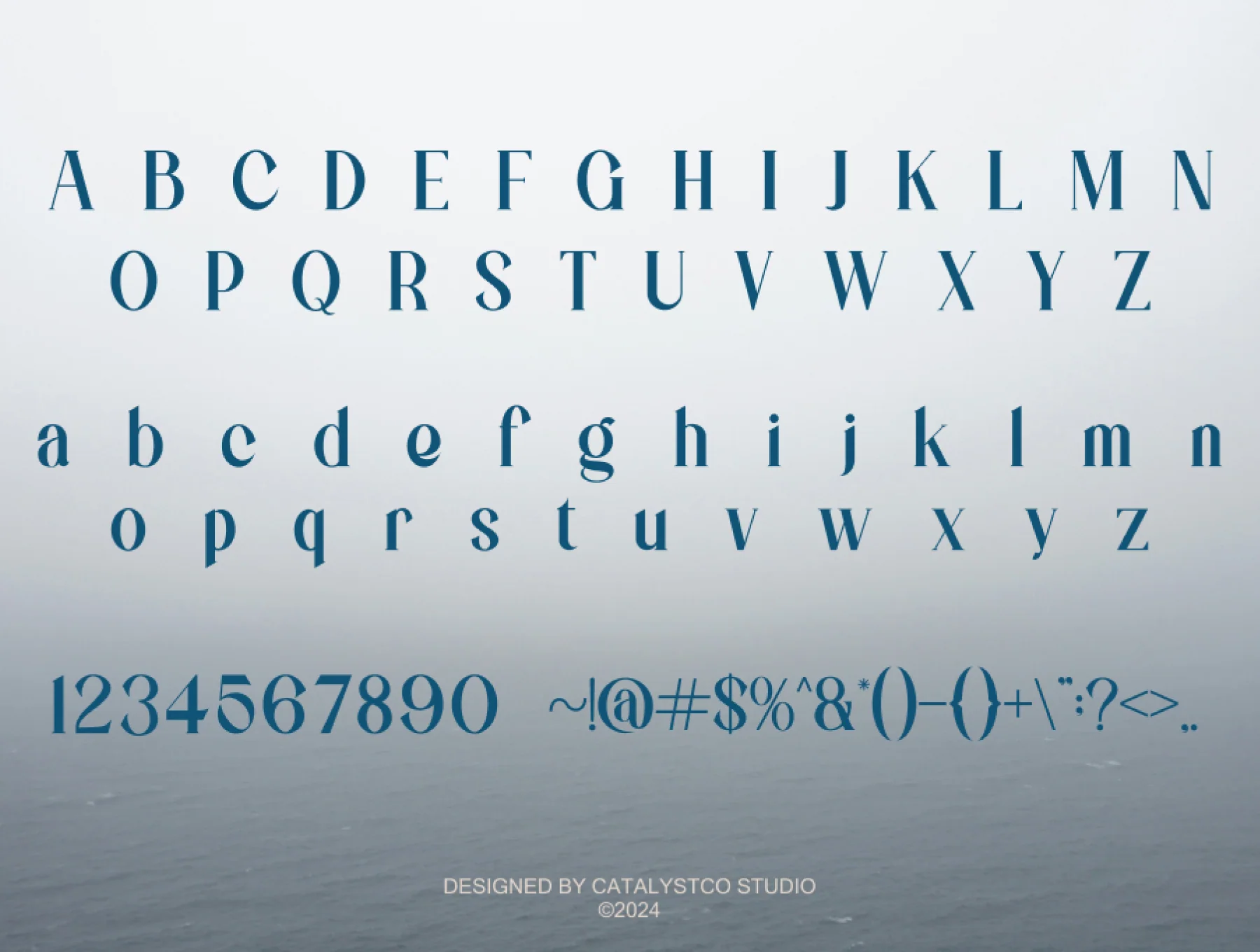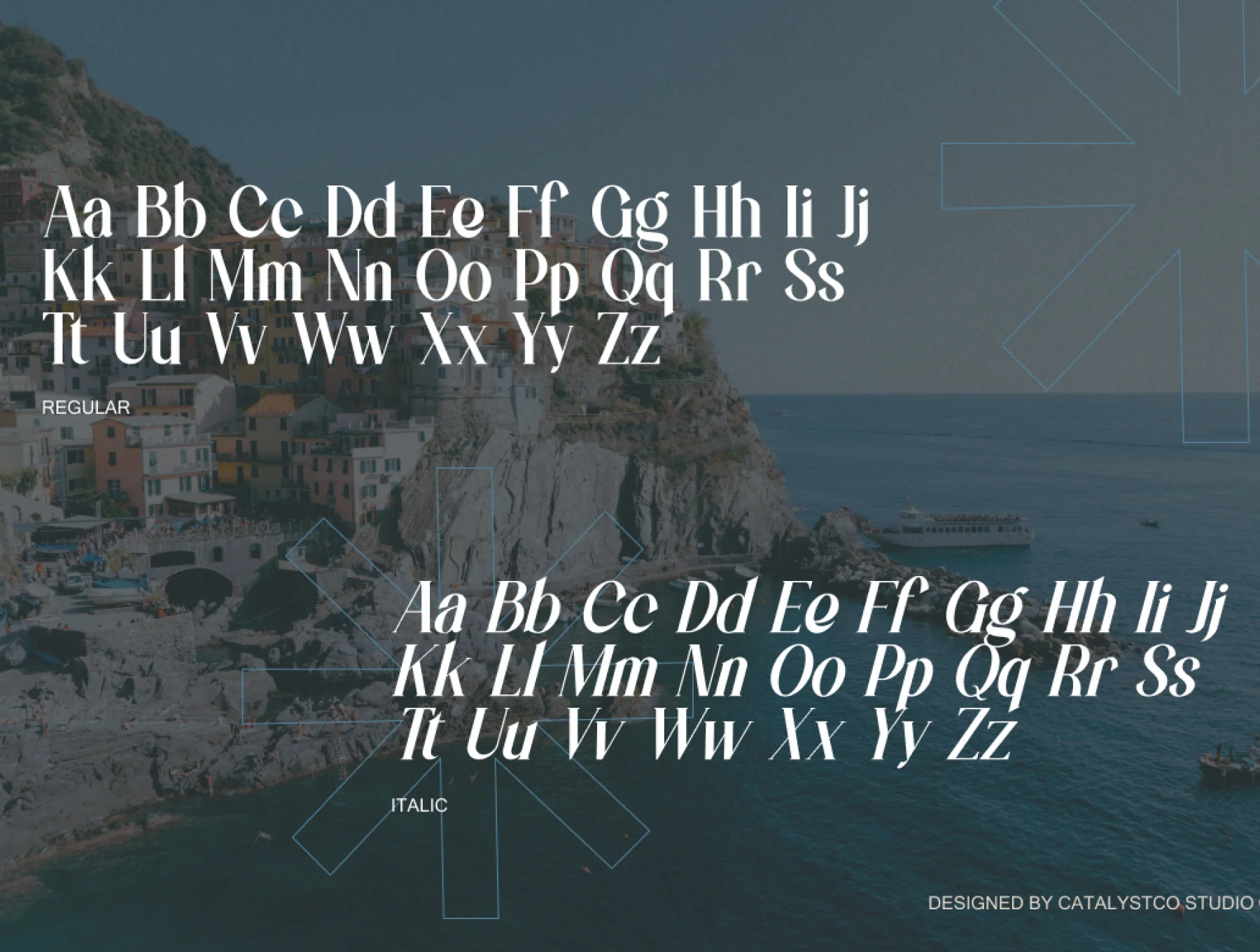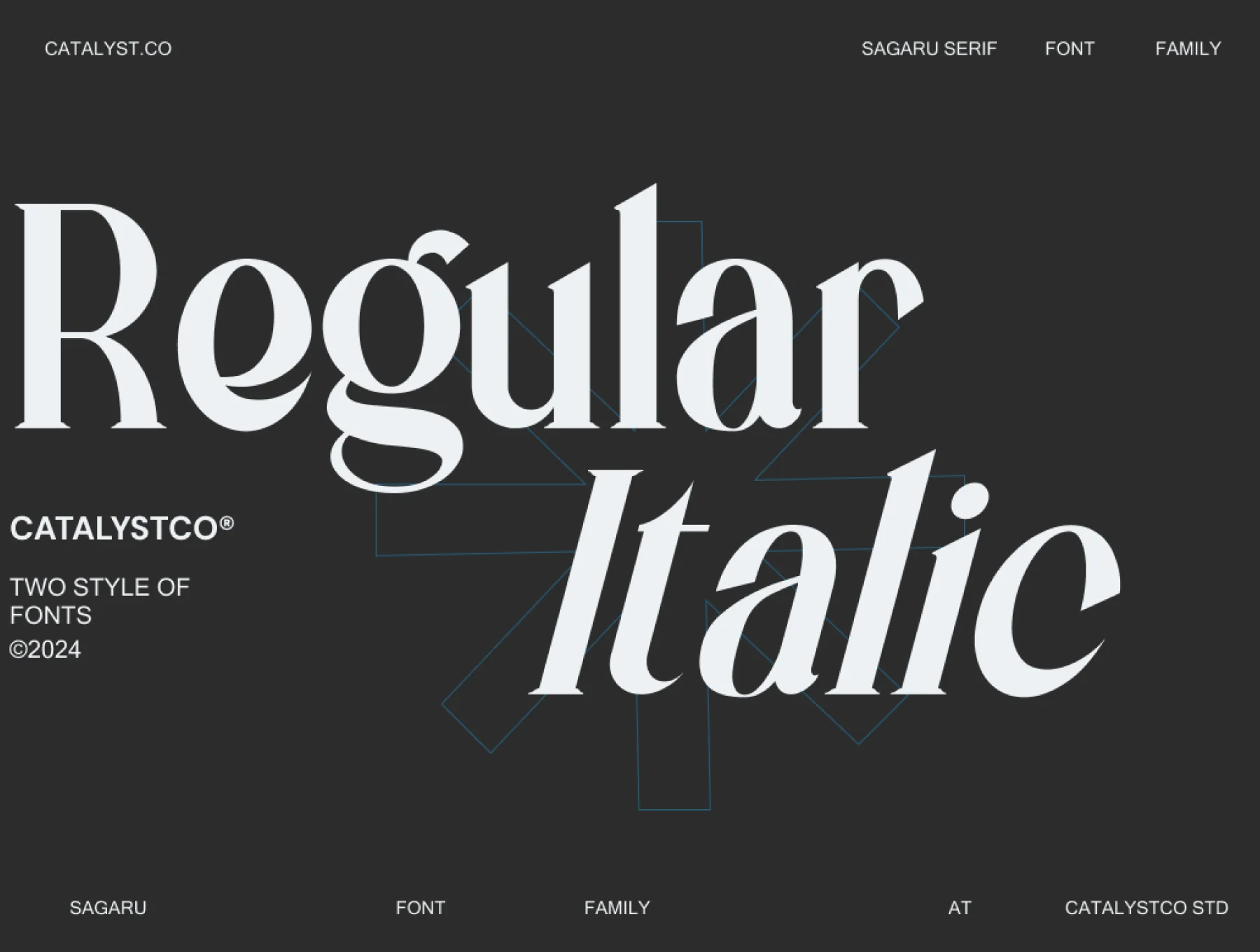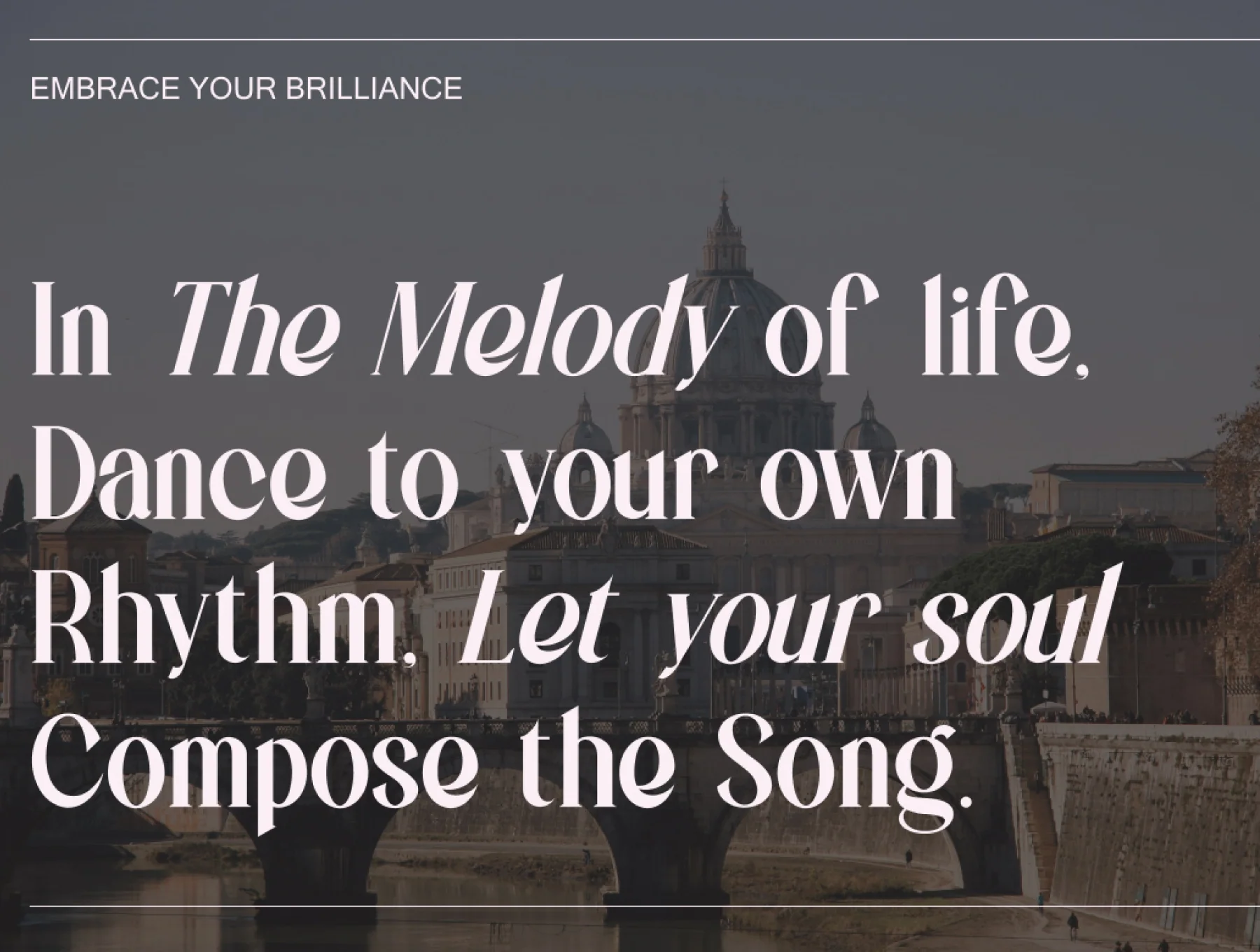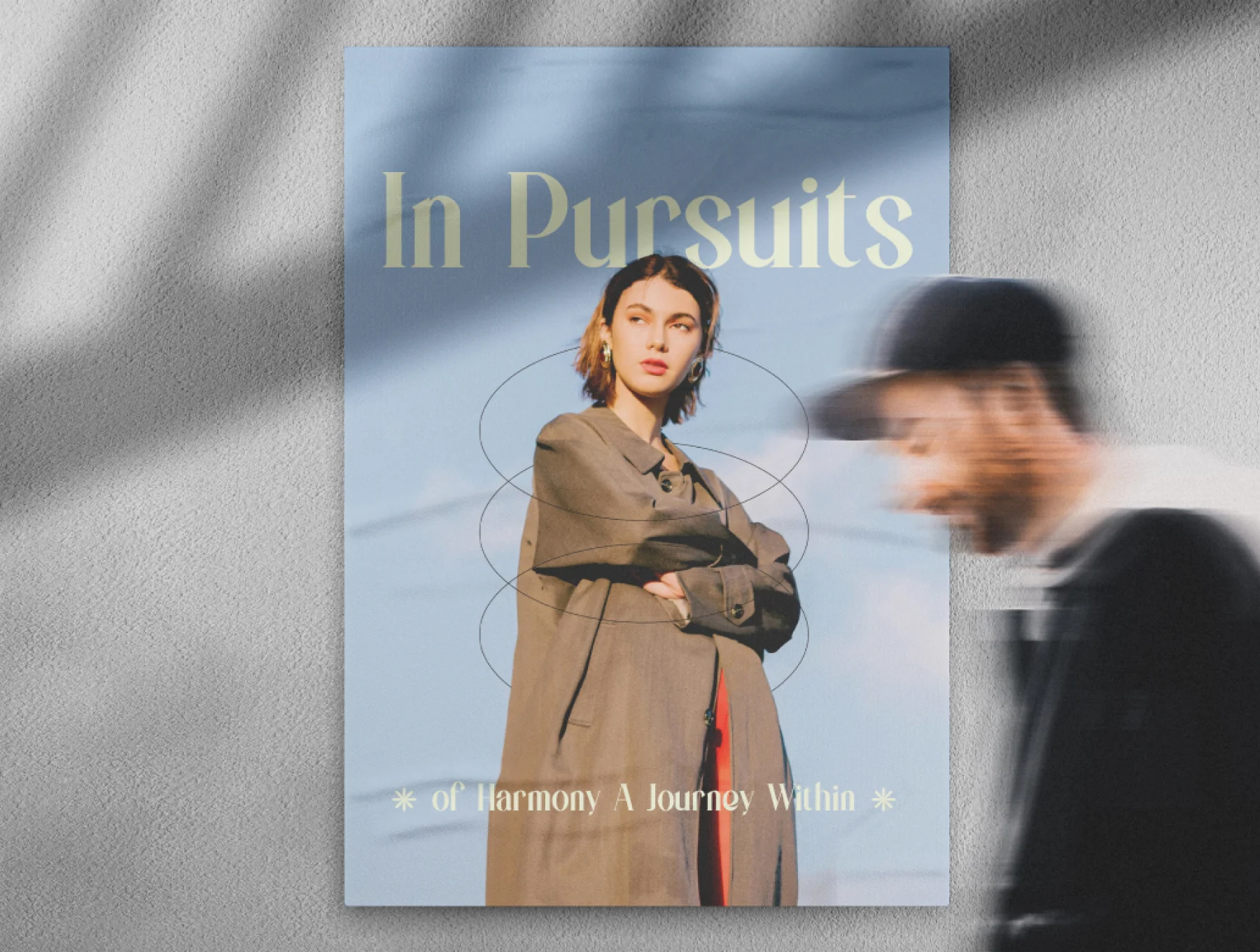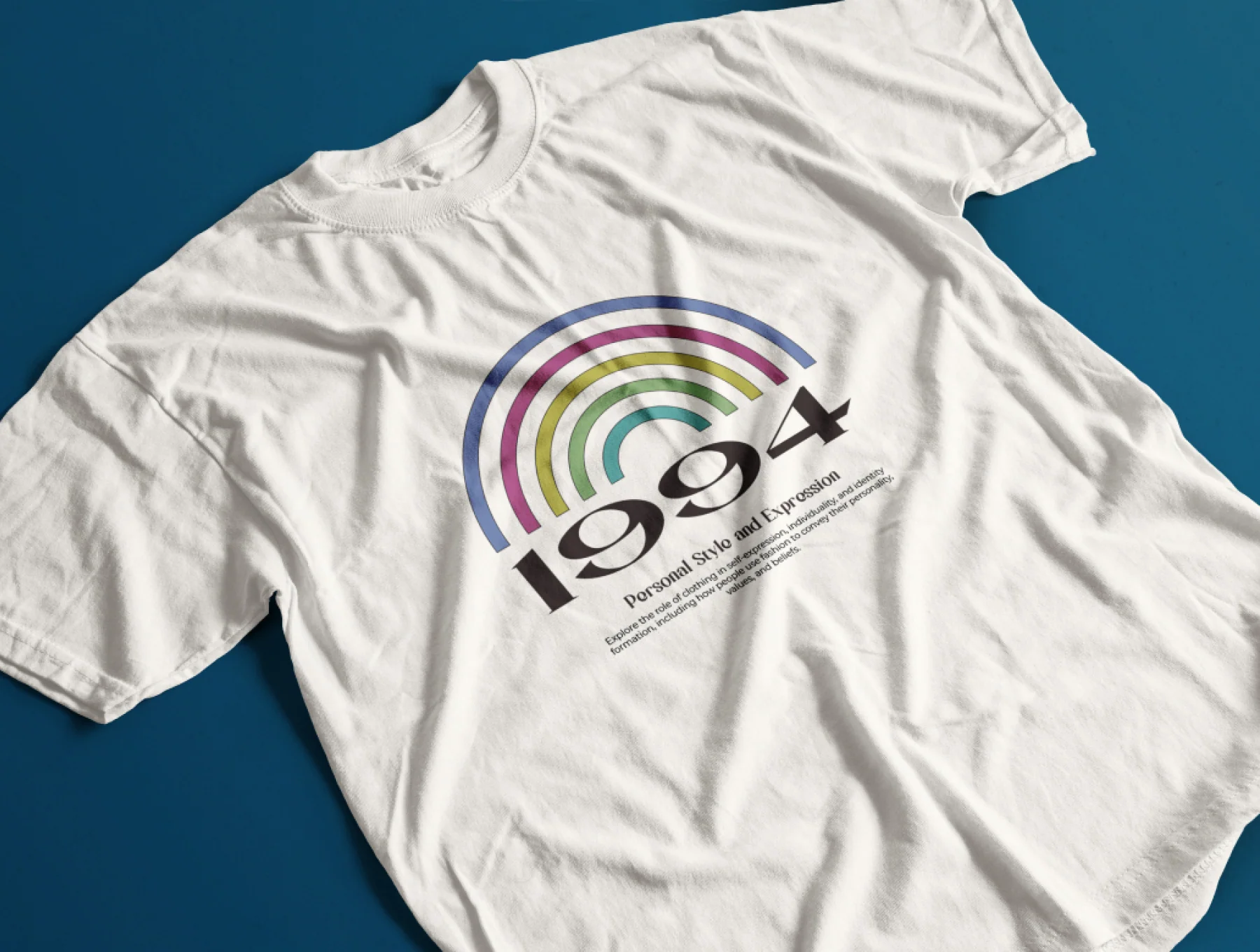
Sagaru Elegant Serif Font
Classic serif typeface
Capital & Small Letterforms
Ligatures & Stylistic Alternates
Sagaru is an elegant serif typeface ideal for quotes, logos, magazine headers, and more. Includes TTF, OTF, and WOFF files, uppercase and lowercase characters, ligatures, alternates, numerals, punctuation, plus regular and italic styles.